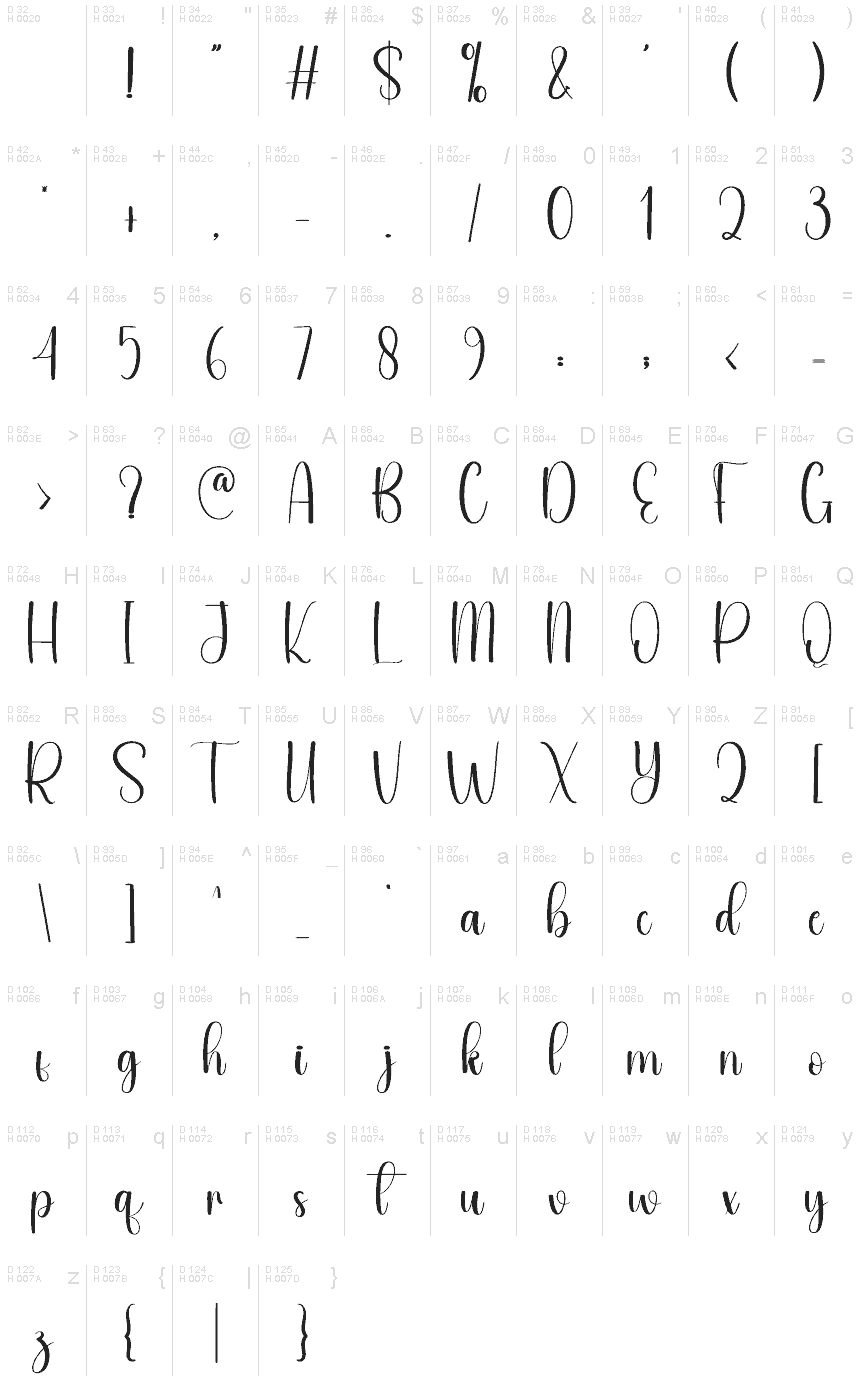
The Easter
The Easter font by Andi Moz is a beautiful calligraphy typeface that combines elegance with modern artistic flair. Featuring condensed letters and smooth transitions, this free cursive font showcases graceful movement inspired by brush writing. It brings stylish sophistication to any project with its creative open[-ended] design and rich flowing strokes.
Use The Easter in book covers, headings, branding, personal signatures, wedding invitations, posters, business cards, greeting cards, advertisement materials, or social media posts outlines.